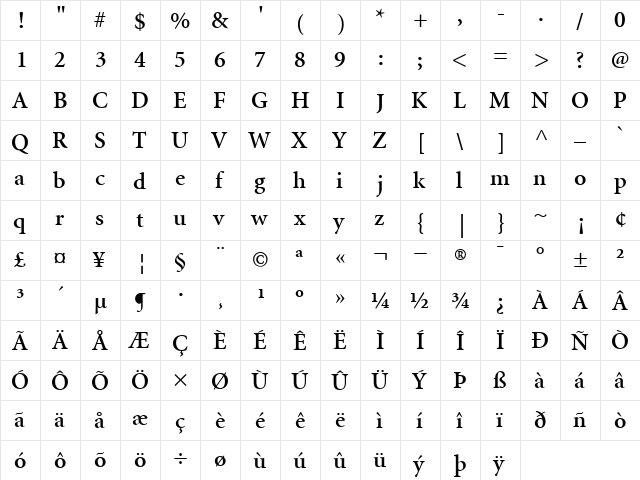
AdobeCorporateIDMinion-SemiBold Semi Bold
Design Context for AdobeCorporateIDMinion-SemiBold Typeface
AdobeCorporateIDMinion-SemiBold is a composed and adaptable typeface that performs quietly and consistently across a wide range of design contexts. Its bold stroke weight gives it real presence on the page.
Pro Tip: Pair AdobeCorporateIDMinion-SemiBold with a font of contrasting weight or personality to build a more expressive typographic hierarchy.